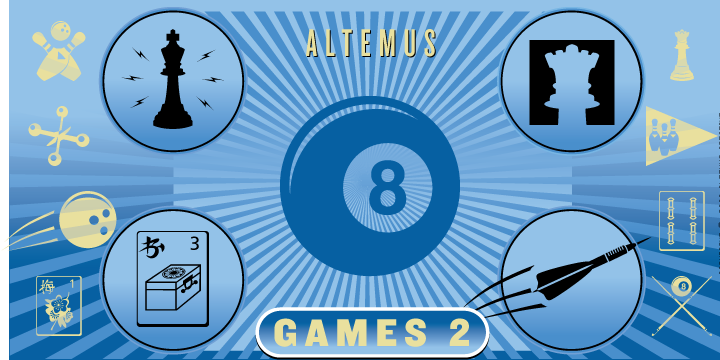
Altemus Games Two
Designed by: Robert Altemus
Designed when: 2002
Design owned by: Altemus Creative
Altemus Games Two
This font contains 174 characters; a set of poolballs, a full set of chess pieces, a full set of majhong pieces, various bowling, bowling pin and ball icons, pool icons, dart icons and jacks.